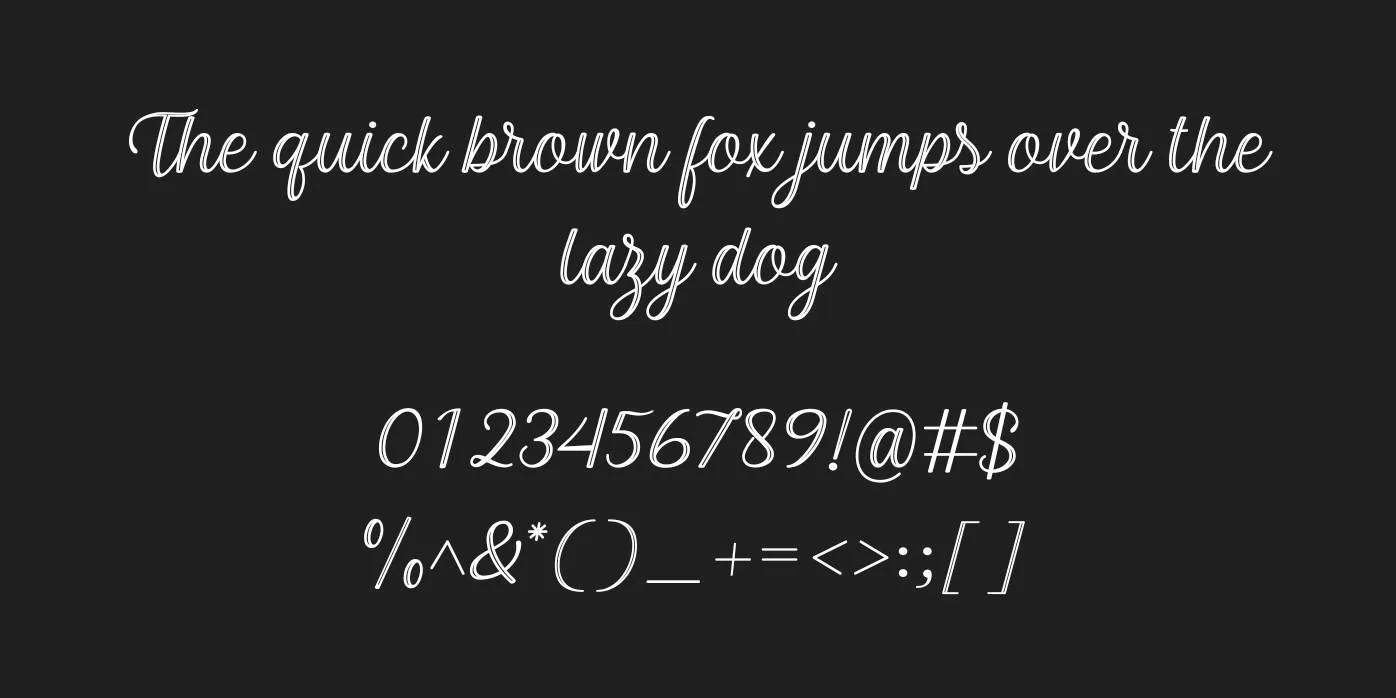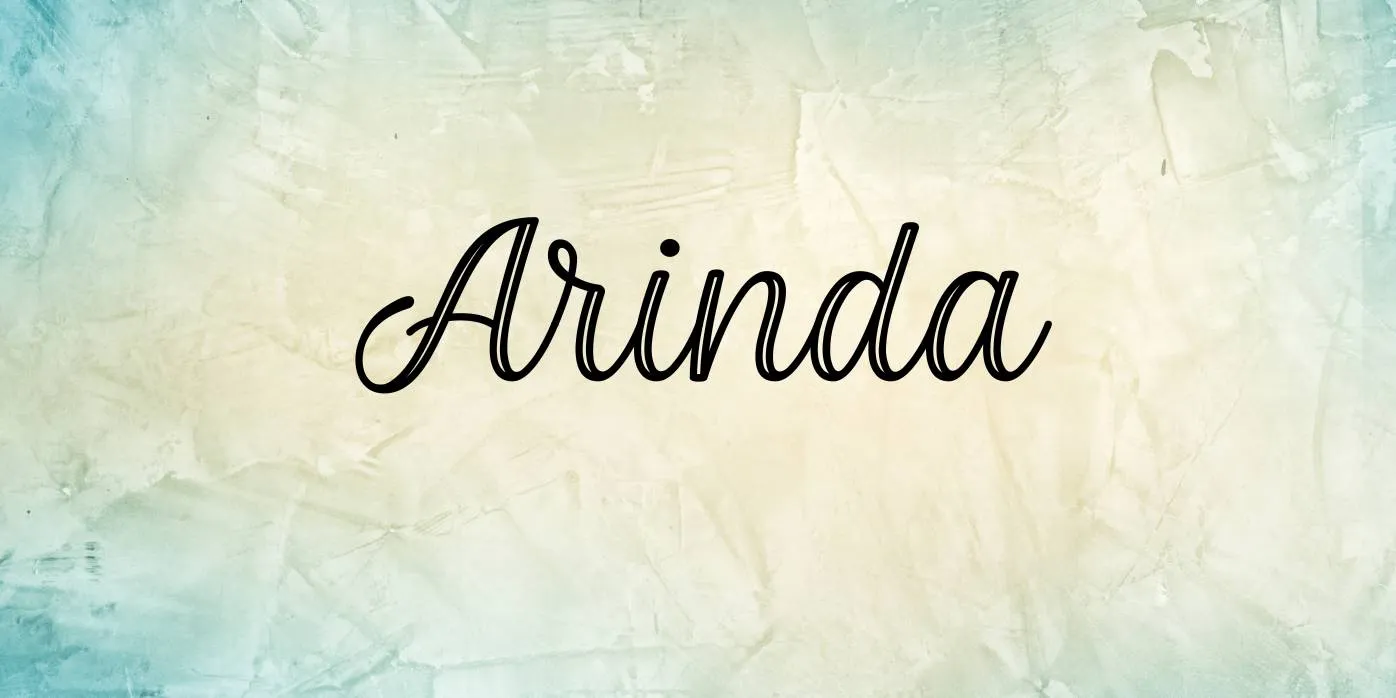
Arinda Font
Arinda Font is a very amazing script typeface that was designed by two famous typographic designers known as the name of Andrian Dehasta and Situjuh Nazara. This elegant font was published through 7NTypes. It is a very modern font and you can design amazing projects by using this font. It was make to be inspired by the natural handwritten typefaces with a stylish look which can be used for give romantic look to your design.
It comes in a single weight that comprised of swashes, Upper & lowercase, Punctuations, numbers and ligatures. It can also easily upload in all of your Editing software. You can download it in OTF file format that can support all of your software. If you want to convert any kind of text into this font then you can use an online generator tool.  Usage When we talk about its usage then there is a huge list of places where the font is used in an extensive range. This font has a unique and joining letters texture that was famous for making attractive wedding cards, invitation cards, greeting cards and many other event. You can make attractive website designs and graphic designs by using this font.